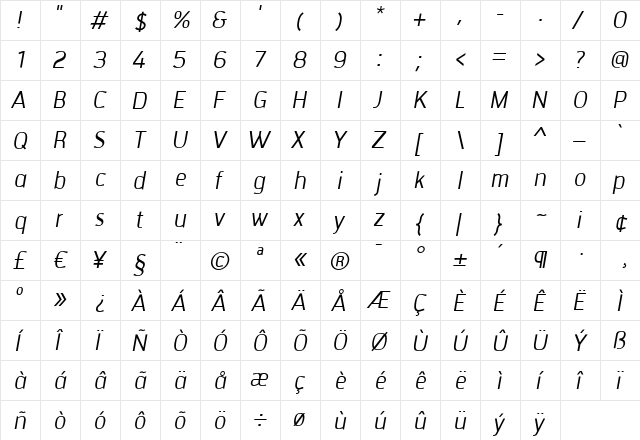
Tirana Italic Regular
Design Context for Tirana Italic Typeface
Tirana Italic takes a measured approach to typography — its balanced proportions and neutral character make it a reliable workhorse for both digital and print work. The dynamic lean of this cut emphasises speed and emphasis in any layout.
Pro Tip: Use Tirana Italic for emphasis, pull quotes, and subheadings where its slanted energy can add rhythm to the layout.